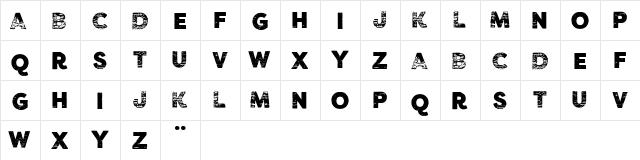
vtks carbo 753 Regular
| Foundry | douglas vitkauskas |
| Designer | douglas vitkauskas |
Design Context for vtks carbo 753 Typeface
vtks carbo 753 takes a measured approach to typography — its balanced proportions and neutral character make it a reliable workhorse for both digital and print work.